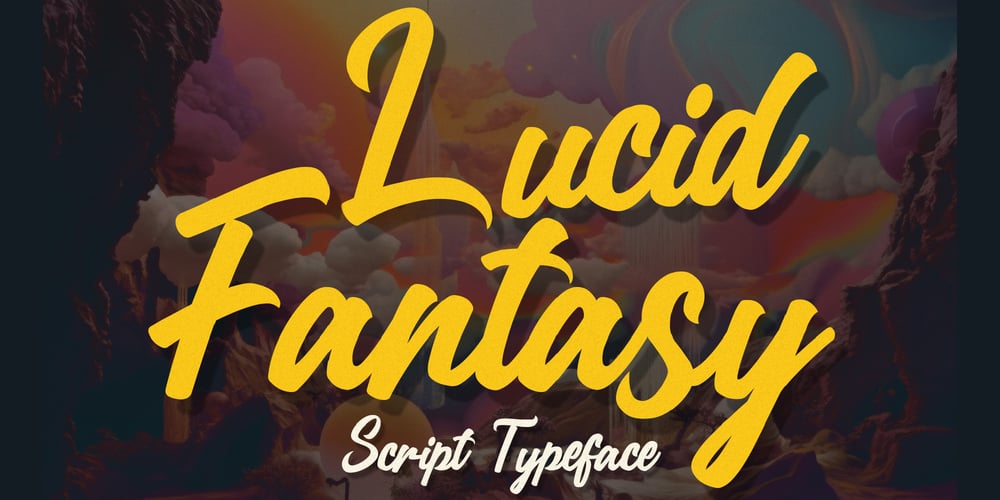
Lucid Fantasy Font Family was designed by Igor Ovsyannykov and published by Hipfonts. Lucid Fantasy contains 1 styles and family package options. Lucid Fantasy is an elegant and sophisticated script font that will transport your designs to a dreamlike world. With its flowing, fluid strokes and graceful curves, this font captures the beauty of calligraphy and handwriting in a digital format.Its unique style and attention to detail make it perfect for wedding invitations, greeting cards, and other high-end design projects. Lucid Fantasy’s intricate and delicate design will add a touch of luxury and refinement to any project.Whether you’re a designer, artist, or creative professional, Lucid Fantasy is the perfect font to elevate your work to new heights. Experience the magic of Lucid Fantasy today and create designs that are truly unforgettable.